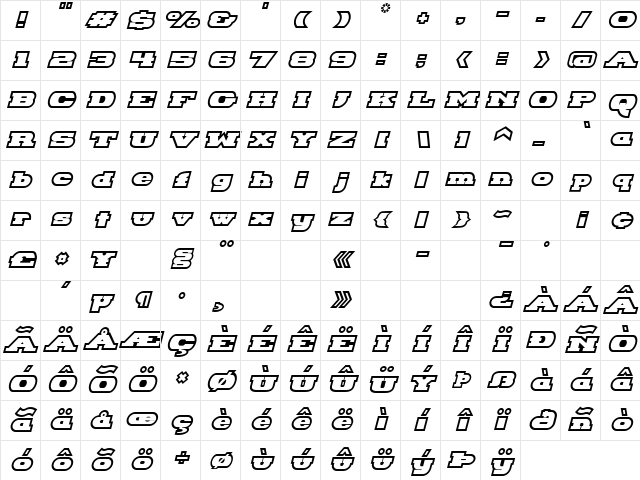
Hackney Block Outline Italic
Design Context for Hackney Block Outline
Hackney Block Outline is built around its visual character rather than neutral utility - its distinctive forms are designed to make an impression at display sizes. The slanted form adds forward momentum and visual energy.
Font Pairing: Pair with a clean neutral sans-serif for body copy to let Hackney Block Outline's character lead without overwhelming the composition.
Pro Tip: Use Hackney Block Outline exclusively at display sizes - it was designed to be seen, not read at length. Let a neutral companion handle body copy.